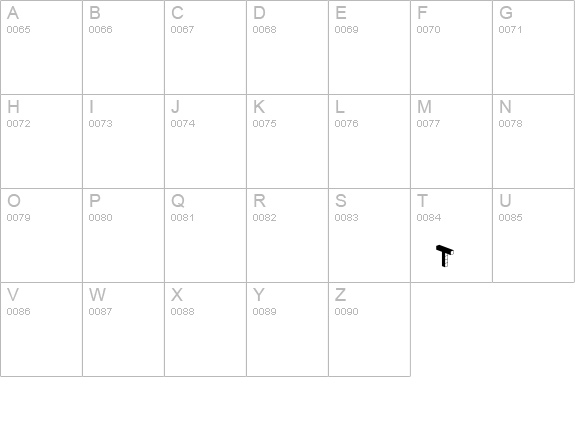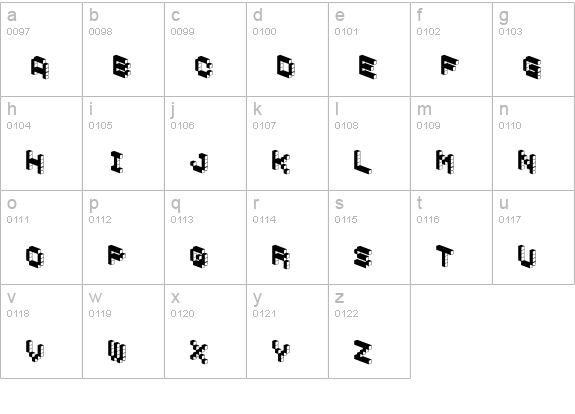
DemonCubicBlockFont Dark Font Details
Introducing DemonCubicBlockFont Dark, a mesmerizing and edgy font that will add a touch of mystery and intrigue to your designs. This unique font features a bold and angular aesthetic, with sharp edges and cubic elements that exude a sense of power and strength. Perfect for creating eye-catching headlines, logos, posters, and more, DemonCubicBlockFont Dark demands attention and leaves a lasting impression. Its distinct style is ideal for projects that require a daring and adventurous vibe, making it a go-to choice for thrill-seeking designers. But what makes DemonCubicBlockFont Dark even more enticing is the fact that it is available for free! That's right, you can now unleash the dark and captivating energy of this font without having to spend a dime. Simply head over to FontsMarket.com and download it effortlessly. Whether you're a professional designer looking to add some edge to your work or a creative enthusiast eager to experiment with captivating typography, DemonCubicBlockFont Dark is the perfect tool to elevate your designs to new heights. Don't miss out on this incredible opportunity to freely access this visually striking and attention-grabbing font. Download DemonCubicBlockFont Dark today at FontsMarket.com and let your imagination run wild.